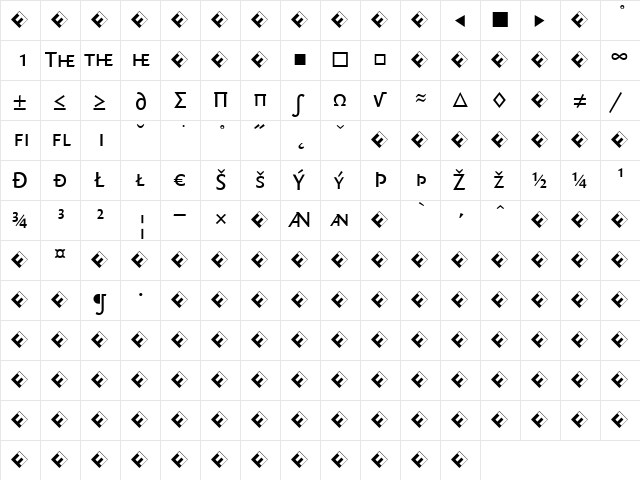
QuadraatSans-CapsExpert Regular
Design Context for QuadraatSans-CapsExpert Typeface
QuadraatSans-CapsExpert takes a measured approach to typography — its balanced proportions and neutral character make it a reliable workhorse for both digital and print work.